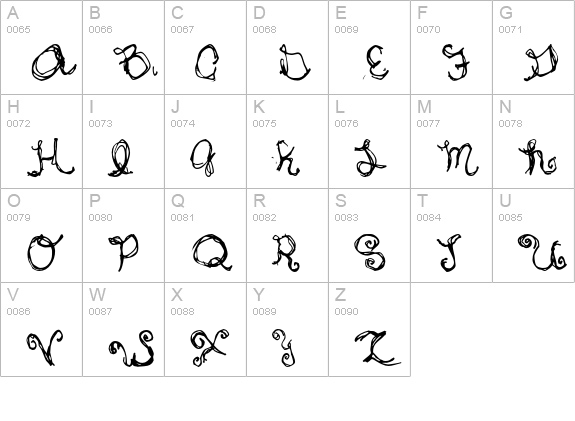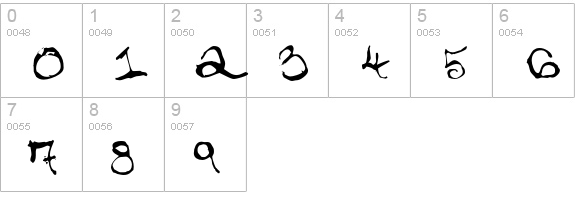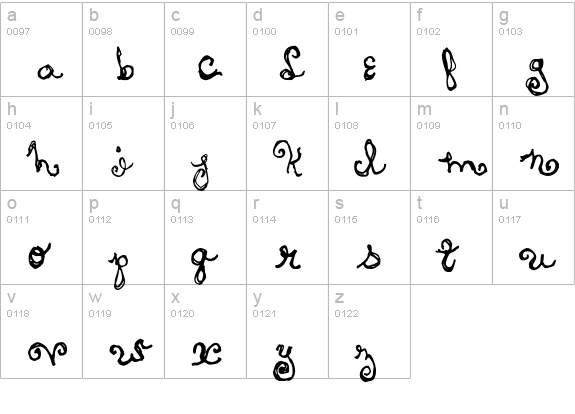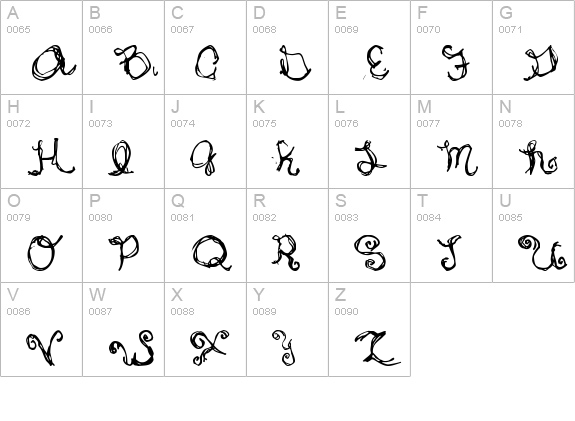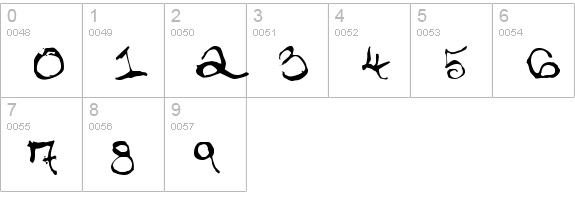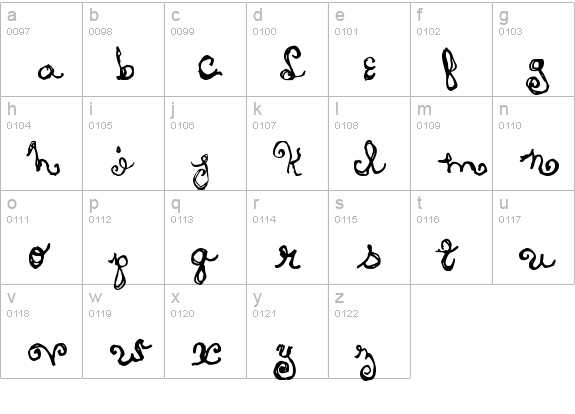
PlasticLasso Font Details
PlasticLasso font is a unique and playful typeface that captures the essence of modern design with a touch of whimsy. Its sleek lines and rounded edges give it a friendly and approachable feel, making it perfect for a wide range of projects. Whether you're creating a logo, poster, or website design, PlasticLasso is sure to make a statement. What's even better is that PlasticLasso font is completely free to download at FontsMarket.com. This means you can easily add this eye-catching font to your collection without breaking the bank. So why wait? Download PlasticLasso today and let your creativity run wild with this versatile and stylish typeface.